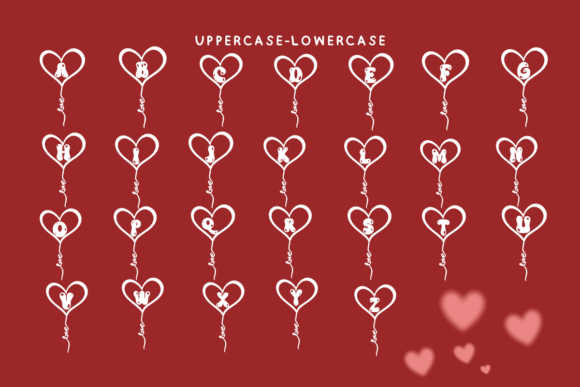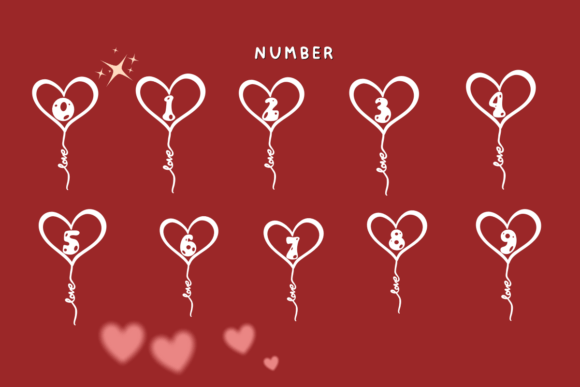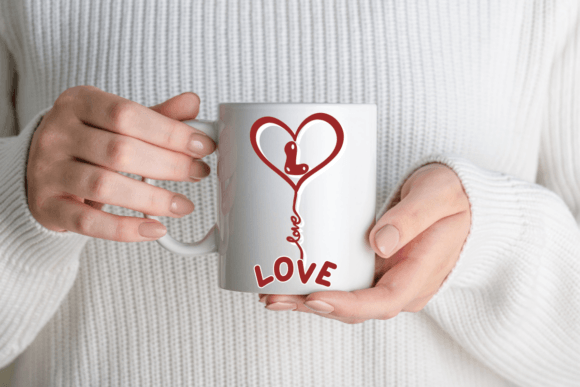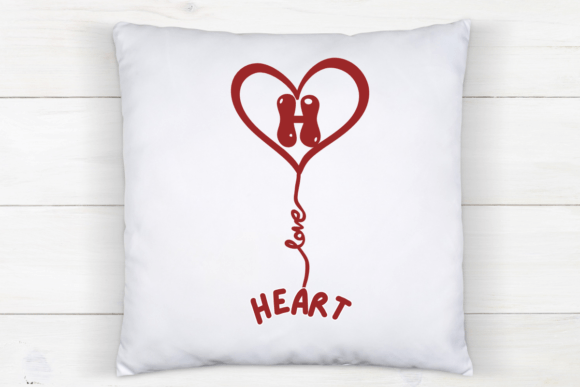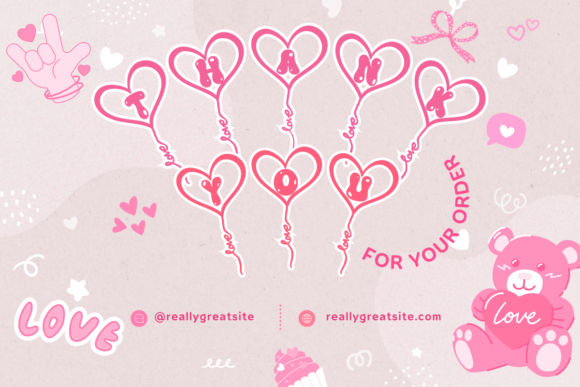
When Creativity Takes Flight
Have you ever been in the midst of a creative project, struggling to find the perfect font to convey the emotions you want to express? For many designers, this is a familiar feeling. But what if you could capture the whimsy and romance of a handwritten font to bring your ideas to life?
Enter the Balloon Love Heart Font, a beautiful and versatile handwritten font that’s perfect for taking notes, writing a diary, or creating greeting cards. But its possibilities don’t stop there – it can also be used for banners, social media posts, mugs, cards, shirts, and so much more! Whether you’re a professional designer or a hobbyist, this font is a valuable addition to your toolkit, allowing you to add a touch of personality and charm to your designs.
Balloon Love Heart Font Key Features
- Unique Characteristics: Hand-drawn, playful, and whimsical design, perfect for creating a romantic or festive atmosphere
Designer Review: Balloon Love Heart Font
I recently had the chance to work with the Balloon Love Heart Font, and I must say it’s a delightful addition to any design project. ✨ Here are a few things that stood out to me:
- Unique charm: This font has a certain whimsical quality that’s perfect for adding a touch of playfulness to your designs.
- Hand-drawn feel: The font’s hand-drawn aesthetic gives it a charming, organic feel that’s hard to find in more commercial fonts.
- Limited character set: The font doesn’t include a full range of characters, which can make it difficult to use in more complex projects.
- Not suitable for body text: Due to its playful, cursive style, this font isn’t ideal for large blocks of body text.
Overall, I think the Balloon Love Heart Font is a great choice for designers looking to add a touch of personality to their projects. It’s perfect for titles, headings, and other design elements where a bit of whimsy is desired. Just be aware of its limitations and use it judiciously.
Some tips for getting the most out of the Balloon Love Heart Font include:
Using it for romantic or playful designs.
Pairing it with pastel colors for a soft, whimsical look.
Using it for social media graphics, invitations, or greeting cards.